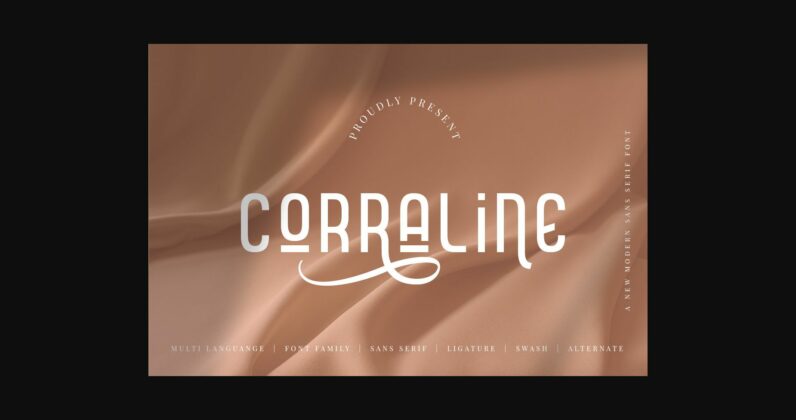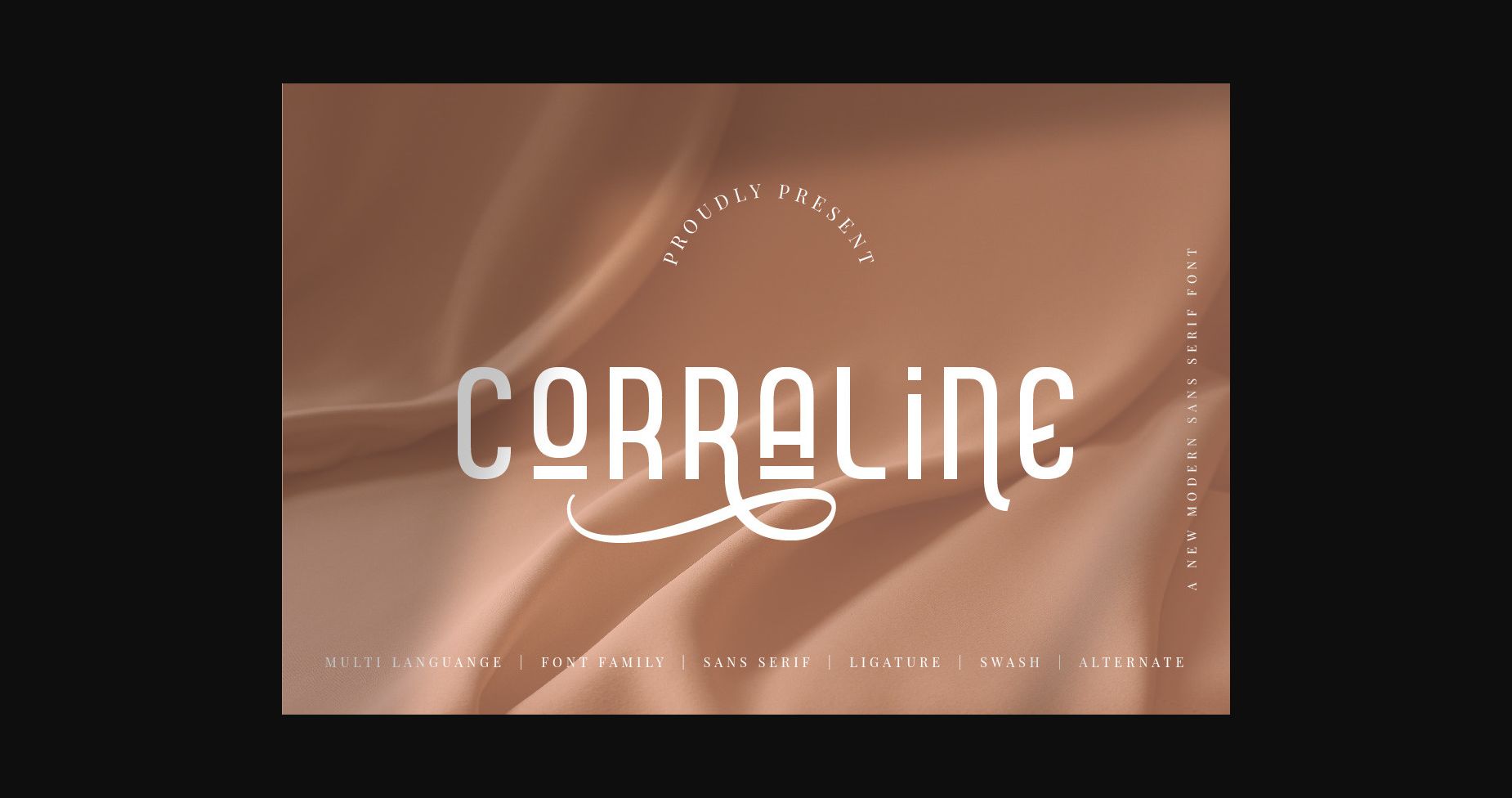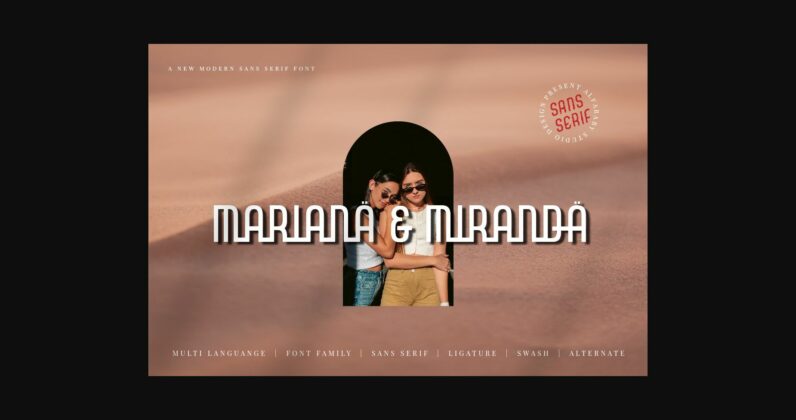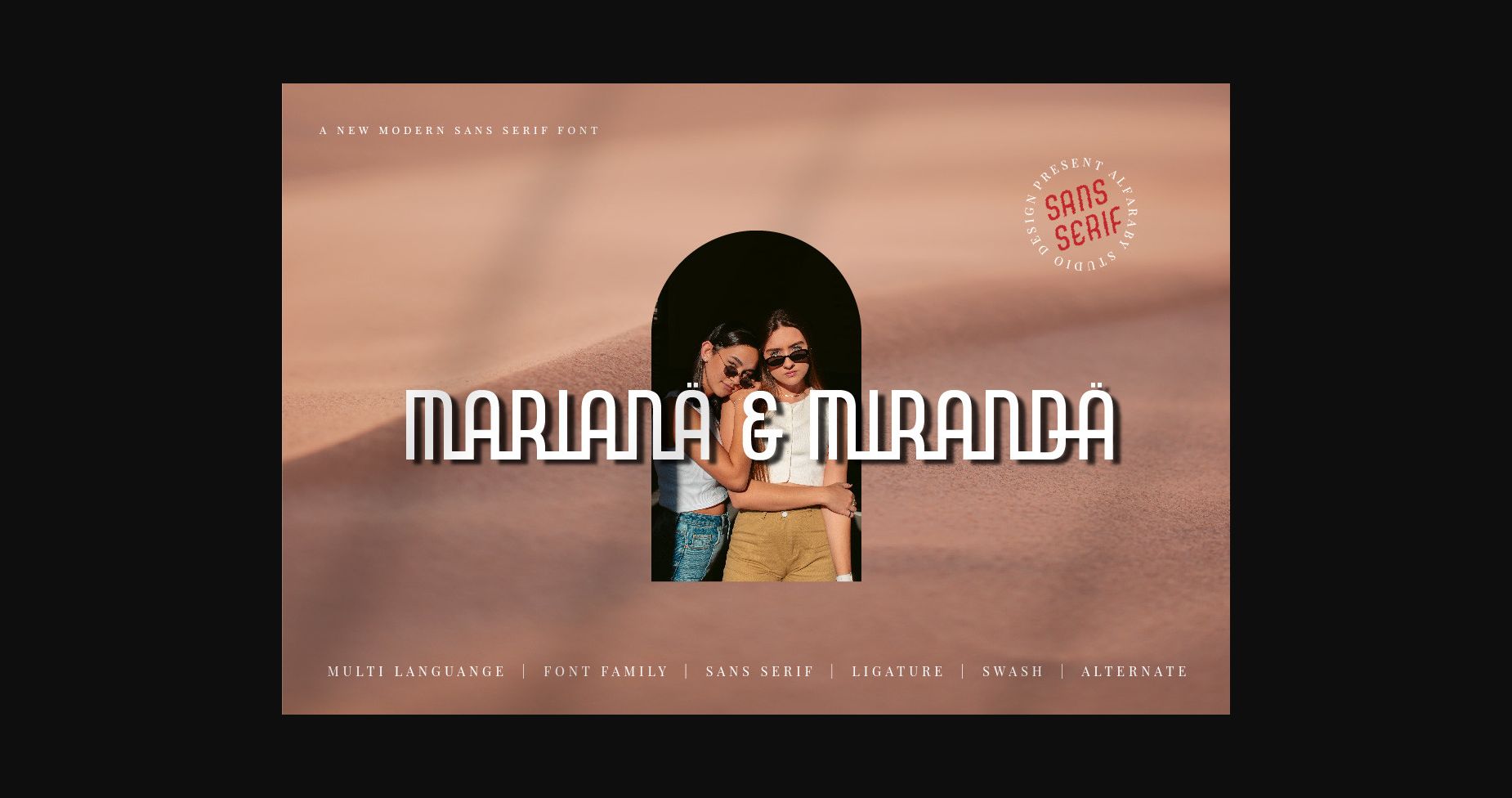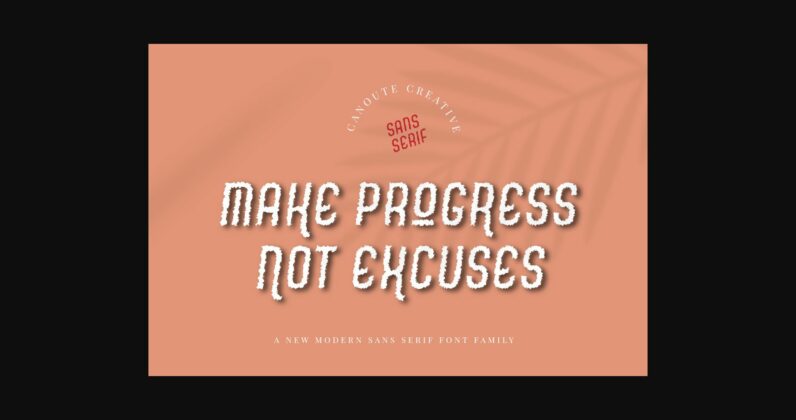
About Corraline Font
INTRODUCING
Corraline Sans Serif Font Family – a unique typeface with a sturdy structure and various styles and complements. It looks very comfortable for the reader, and it is also simple in nature. It is suitable for official media such as banners, magazines, newspapers, product names, logos, labels, name books, and others.